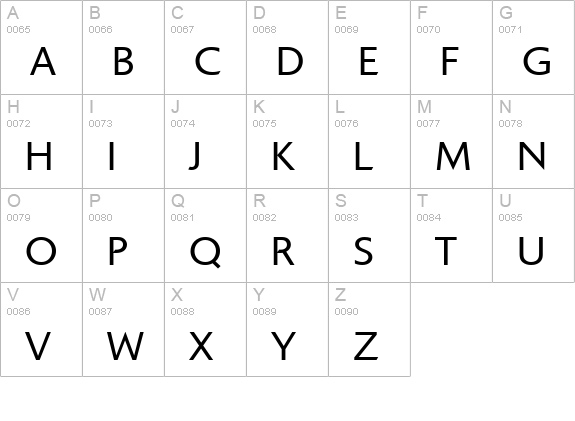
Delta Jaeger Light is a refined, elegant variant in the Delta typeface family \xE2\x80\x94 well suited to elegant body text, refined sub-headings, and luxury branding.
Delta Jaeger Light is a sleek and modern sans-serif font that exudes elegance and sophistication. With its clean lines and balanced proportions, this typeface is perfect for a wide range of design projects, from branding to editorial design. The light weight of the font adds a touch of airy sophistication, making it ideal for conveying a sense of refinement and professionalism. And the best part? Delta Jaeger Light is available for free download at FontsMarket.com. Whether you're working on a personal project or a client's design, you can easily access this versatile font and elevate your creations with its timeless appeal. Download Delta Jaeger Light today and discover the endless possibilities it offers for your next design endeavor.